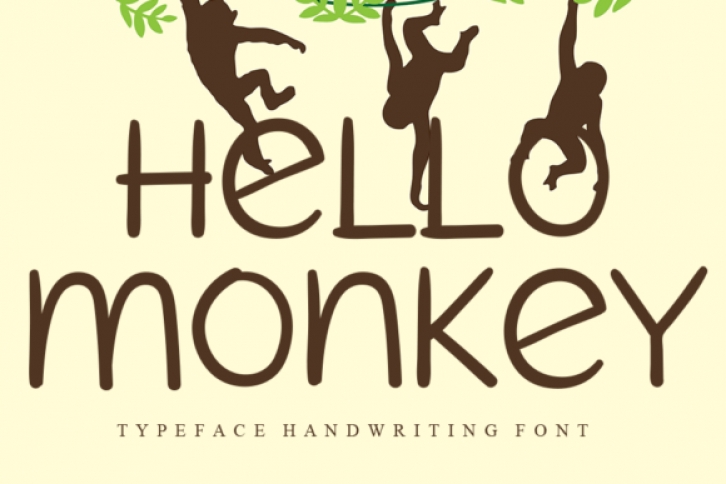
Hello Monkey is a playful, handwritten font that’s overlapping lines will add some fun to your next design such as flyers, promotional material, brand identity, wall art, invitations and so much more.